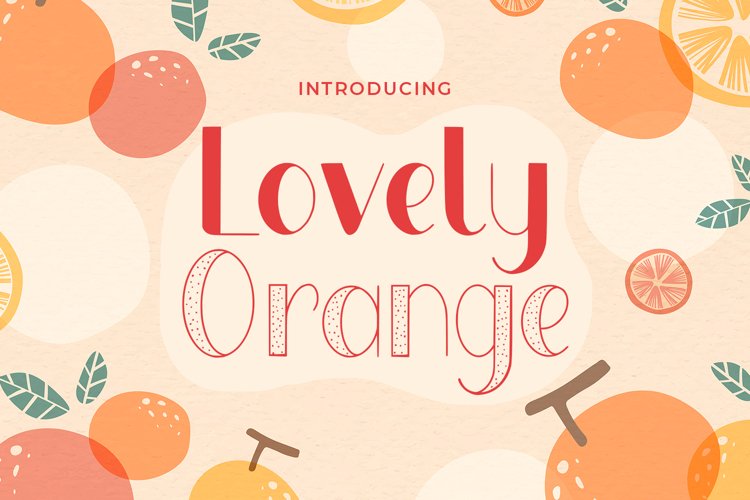
Lovely Orange - Fun Display Playful Sans full of charm . It will take any DIY-project to the next level!
Lovely Orange is perfect for Craft , product packaging, product designs, label, branding projects, logo, wedding designs, social media posts, advertisements, watermark, invitation, stationery and any projects